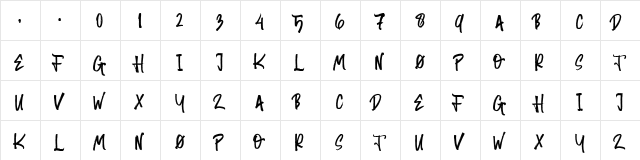
Random Brush Regular
| Foundry | Atjcloth Team |
| Designer | Atjcloth Team |
Design Context for Random Brush Typeface
Random Brush brings a calligraphic fluidity to the page — its connecting strokes and expressive curves give it an unmistakably human quality.
Font Pairing: Combine Random Brush with a simple geometric sans for maximum contrast — the tension between flowing curves and clean structure is a classic typographic pairing.